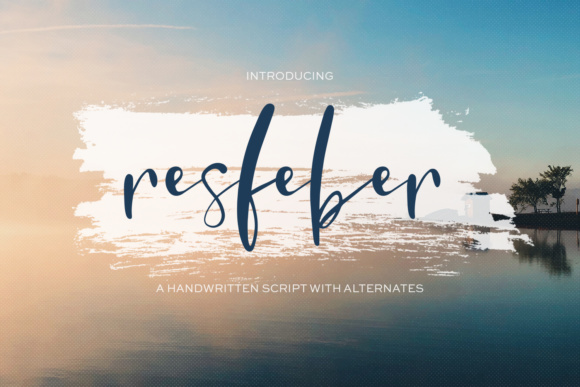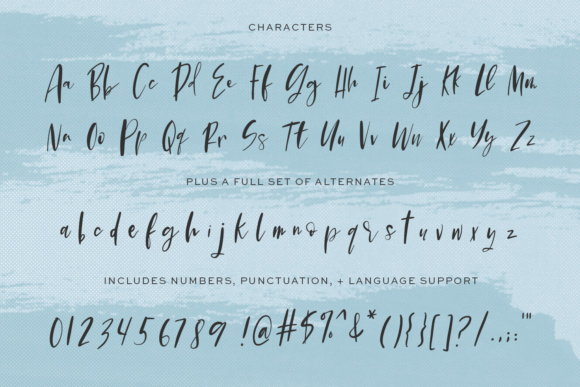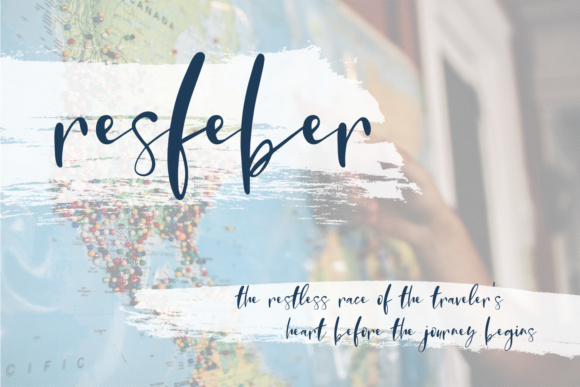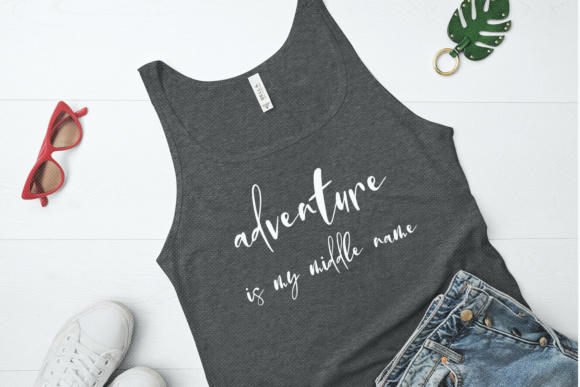
About Resfeber Script Font
There’s always a little story that goes along with the fonts I release, whether it’s design-based or in the name. Resfeber Script is no different.
For years — as long as I can remember — wanderlust has tugged at my heart, that longing to see and experience. At the time Resfeber Script was lettered + programmed in Summer 2018, that pull was strong — probably because of an upcoming trip.
Resfeber didn’t have a name yet, but as the font was nearing completion, it seemed to fit — closing in on about a month before we hop a flight, head to Europe, and I get to introduce myself to the places that so many of my ancestors lived, worked, and established themselves.
Resfeber
Swedish; noun. 1. The restless race of the traveler’s heart before the journey begins.
Meet Resfeber Script — a casual, effortless handwritten font — emphasis on the handwritten.
Resfeber is the perfect fit for a modern, contemporary brand with its editorial feel. It would also be awesome for t-shirt designs, social media, quote graphics + other print materials.